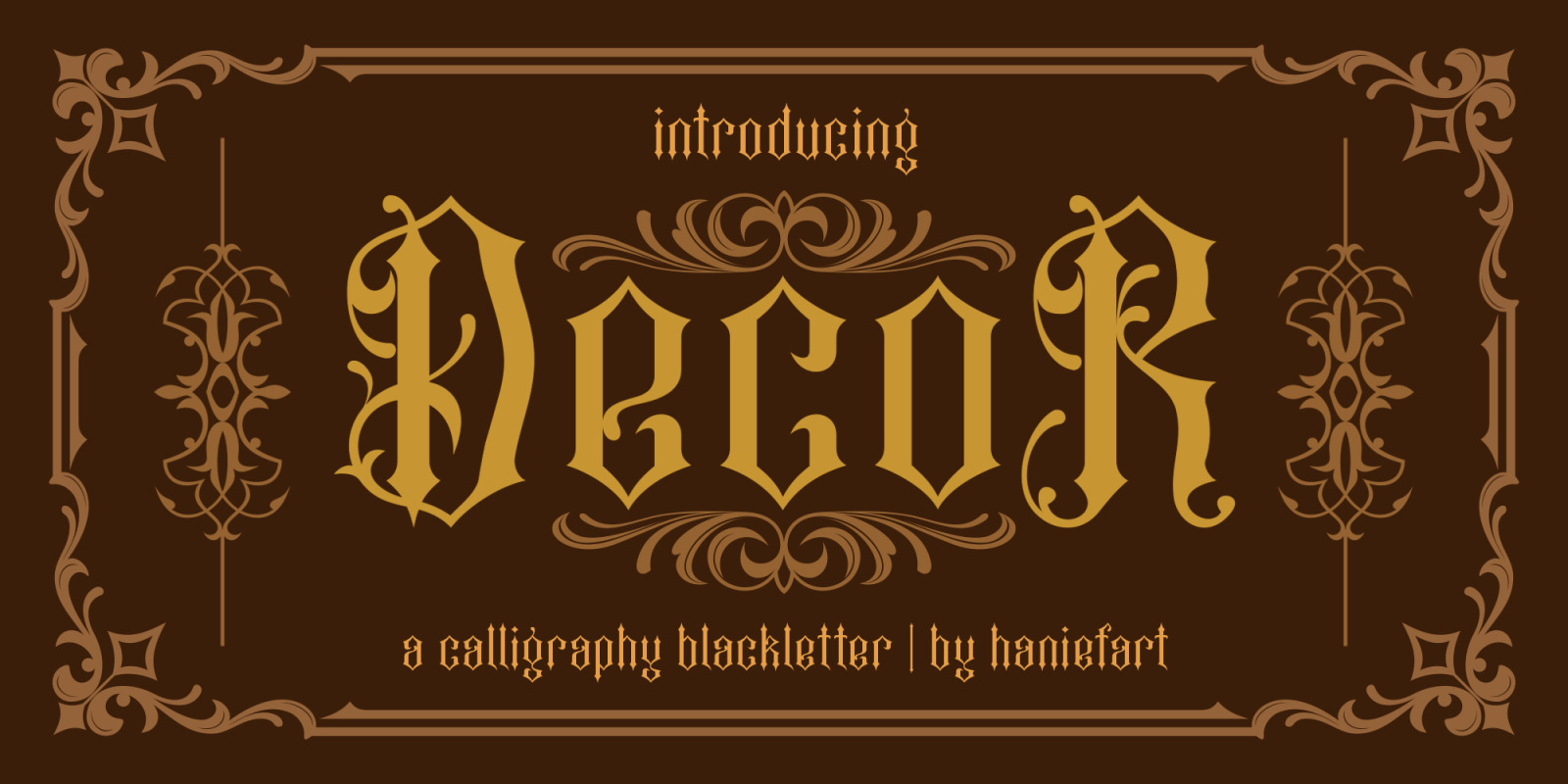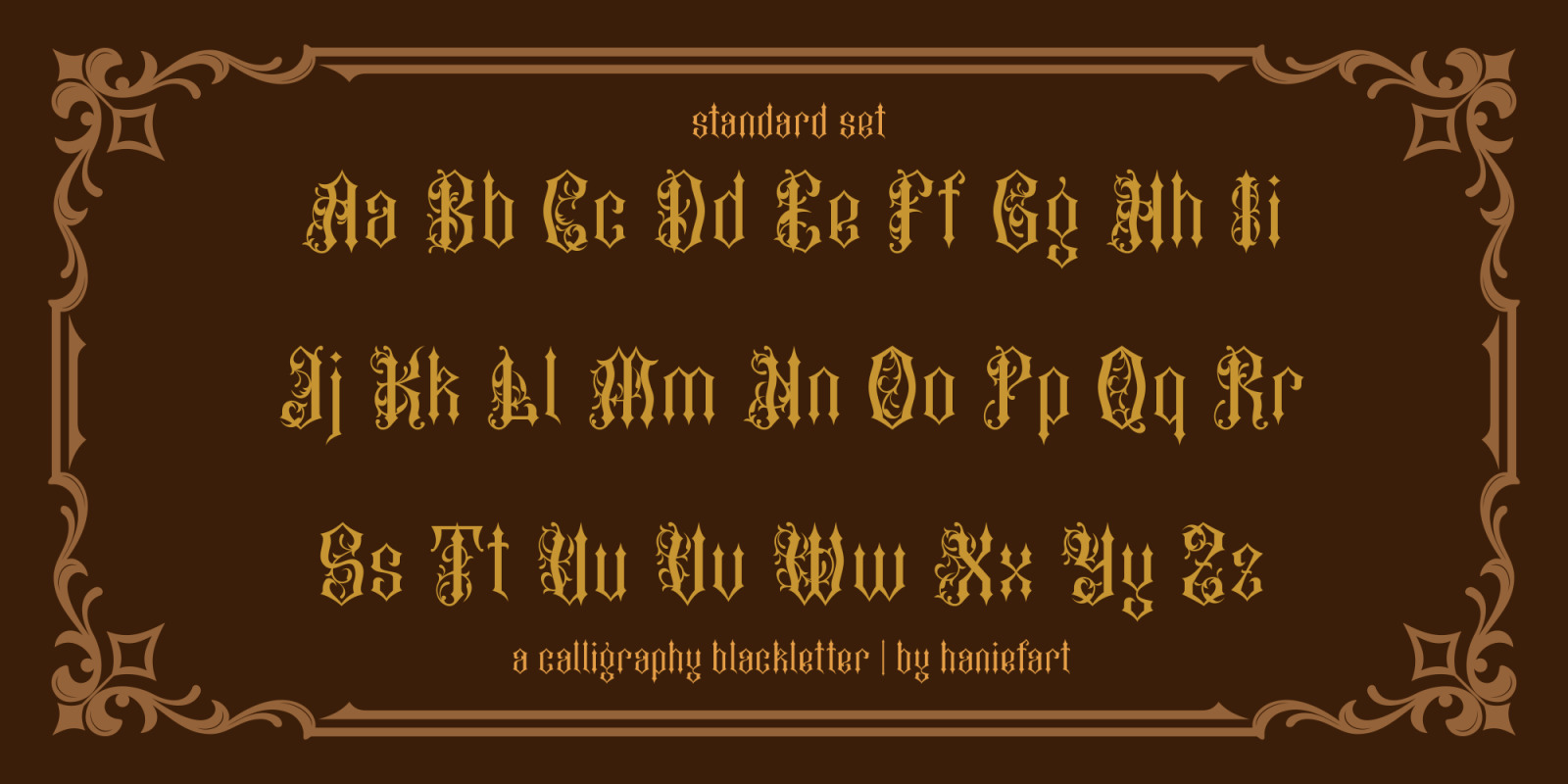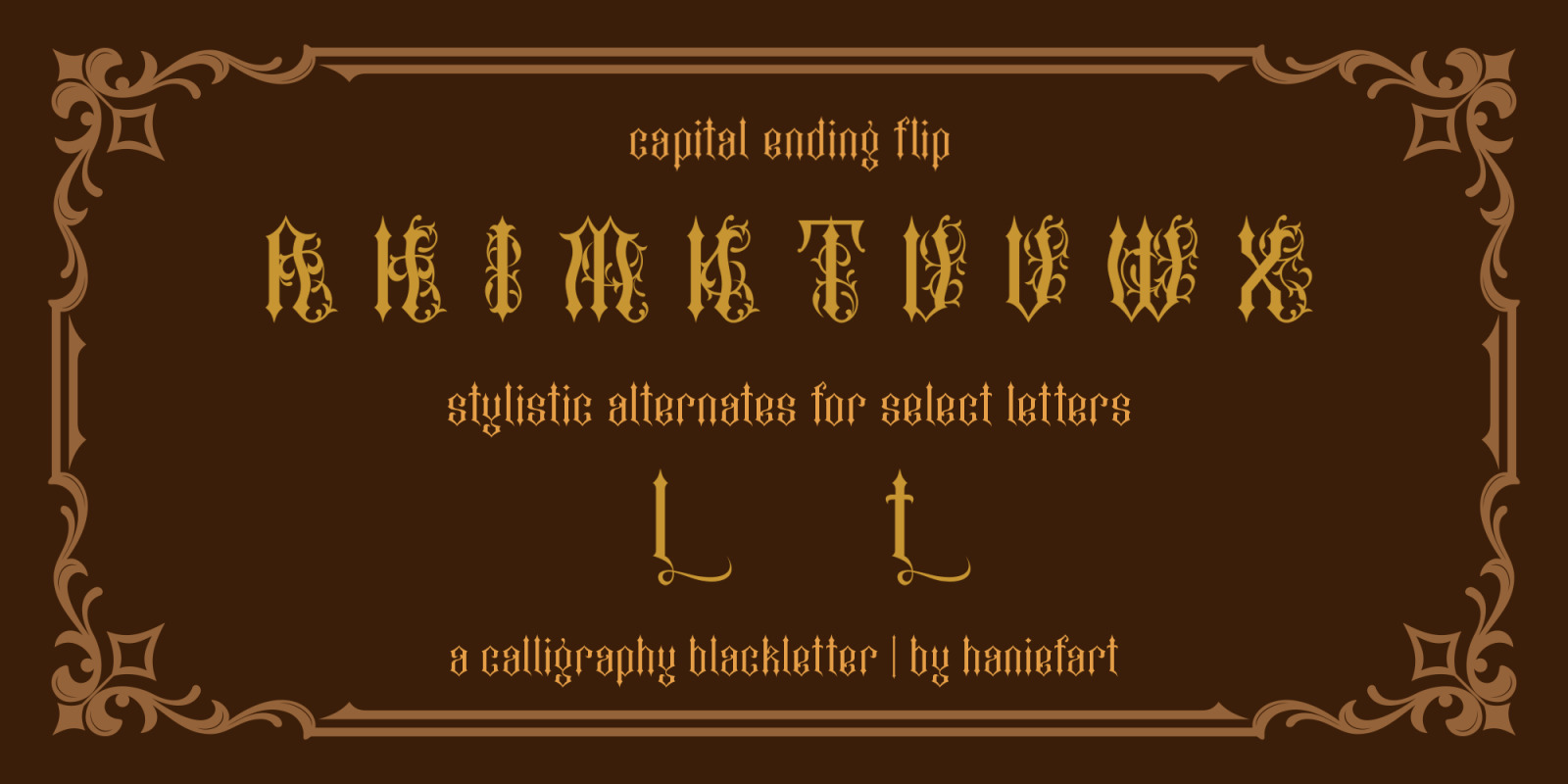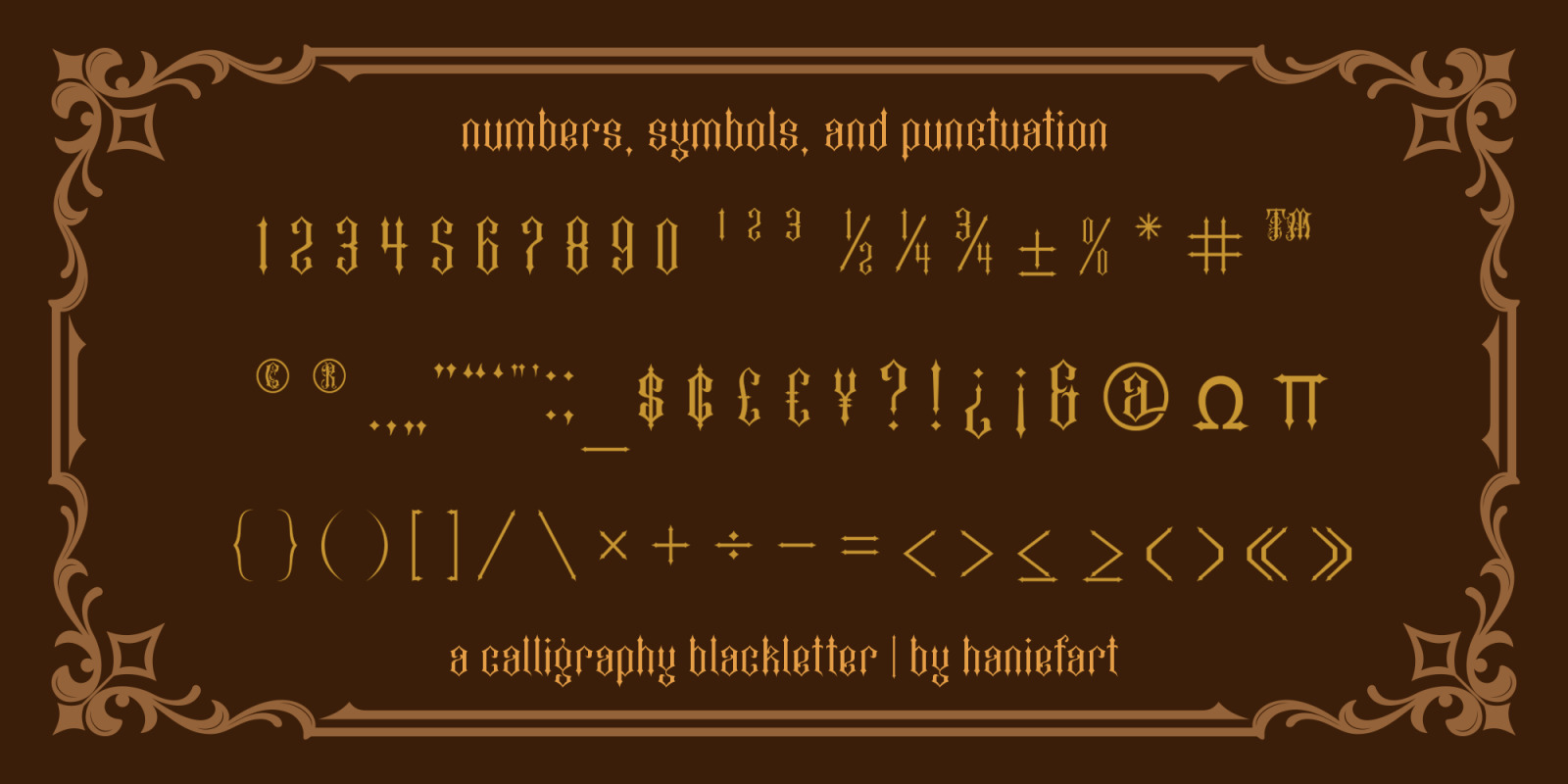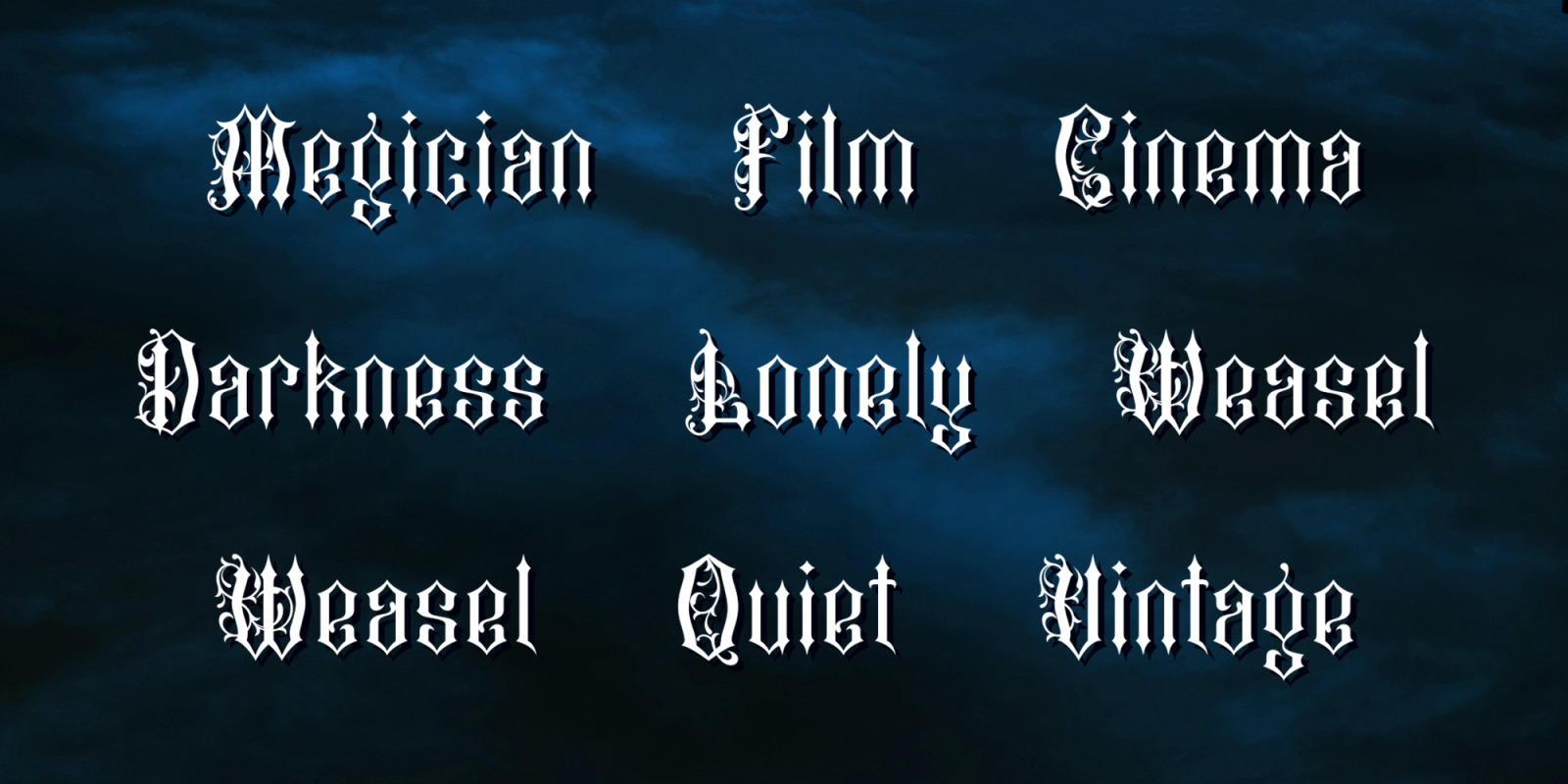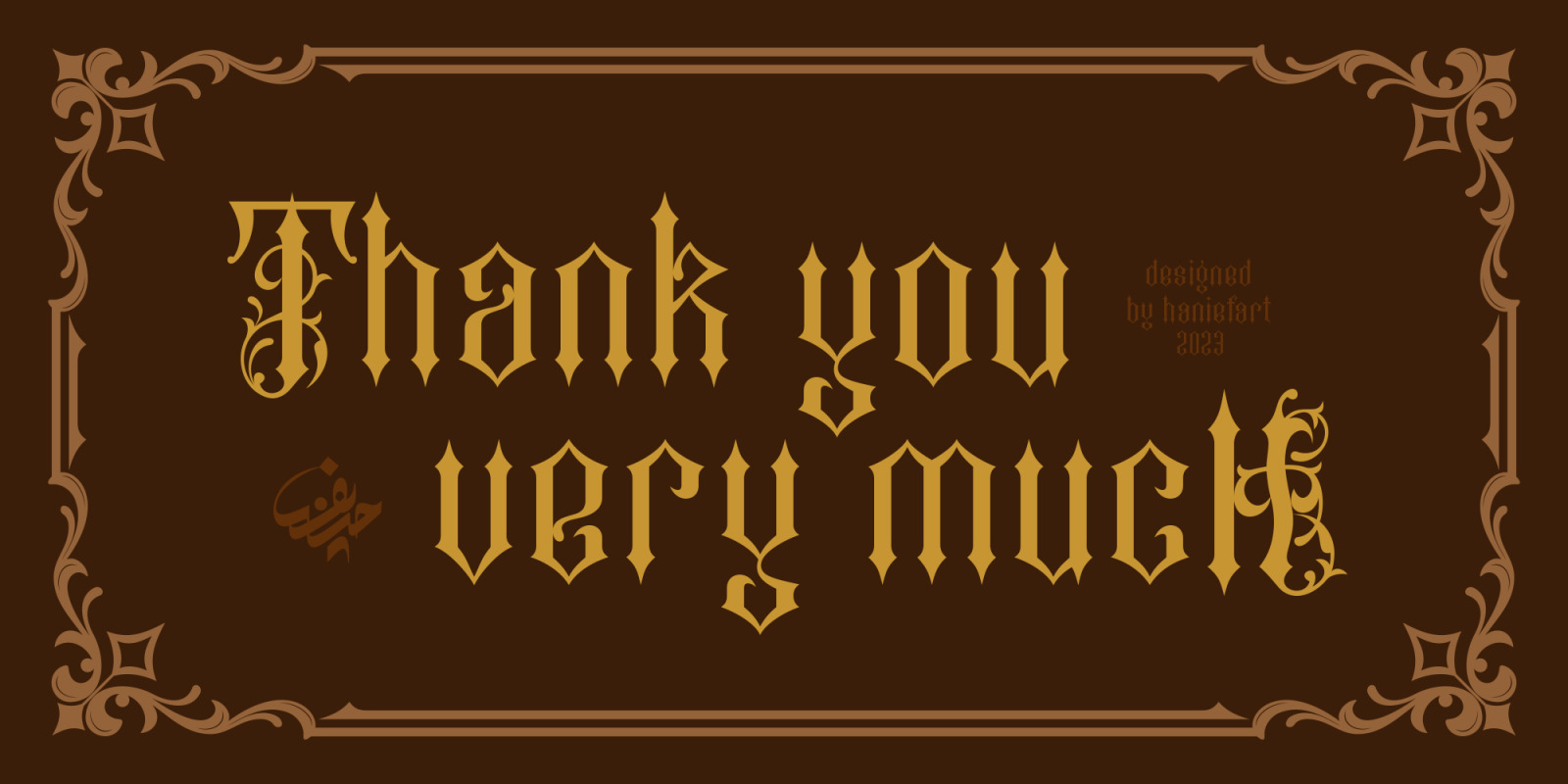
Decor Font
Decor is a classic style font made by hand modified with various ornaments to make it look attractive and modern and elegant, which can be used for company brands, logos, movie titles, drink bottles and so on.